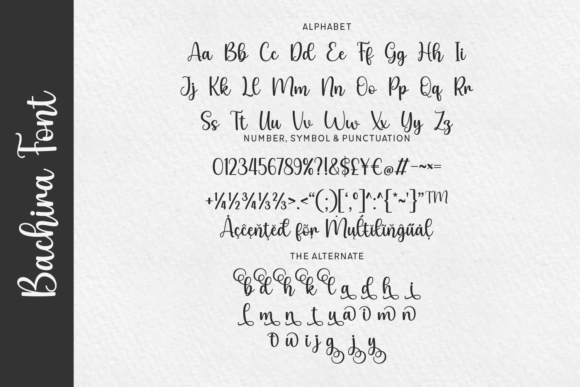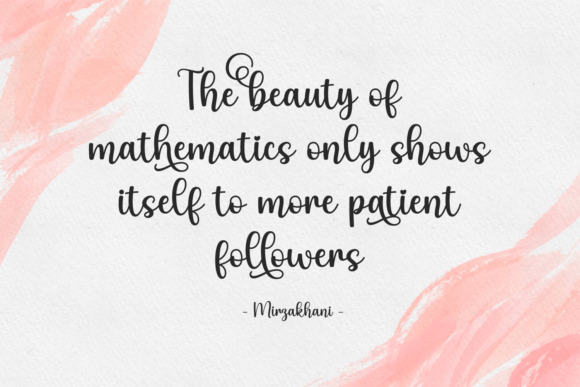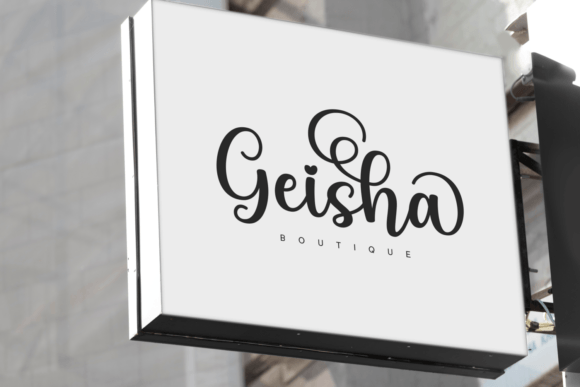
Introducing Bachira Font: Elevate Your Designs with Elegance and Playfulness
In the world of typography, a font can make or break a design. For those seeking a touch of elegance and whimsy, Bachira Font is an exceptional choice. This charming script font boasts unique swashes and an elegant design, making it perfect for a variety of creative projects. From wedding invitations and branding to greeting cards and more, Bachira adds a sophisticated yet playful touch that elevates any design.
The Characteristics of Bachira Font
Bachira Font is distinguished by its beautiful, flowing script and distinctive swashes. These elements give it a romantic and refined appearance, ideal for designs that require a touch of sophistication. The font’s strokes are both playful and elegant, balancing whimsy with class. This versatility makes Bachira suitable for a wide range of applications, from logos and social media posts to more traditional uses like wedding invitations and greeting cards.
Whether you’re a designer looking for the perfect font for a client’s branding or a crafter seeking to add a personal touch to your handmade products, Bachira Font is an excellent choice. Its unique blend of elegance and playfulness ensures that your designs stand out. Here are some of the areas where Bachira truly shines:
- Wedding Invitations: Add a touch of romance and sophistication to your wedding invitations with Bachira’s elegant script and beautiful swashes.
- Branding: Elevate your brand with a font that exudes elegance and professionalism. Bachira’s unique style ensures your brand stands out.
- Greeting Cards: Whether it’s a birthday, anniversary, or holiday card, Bachira adds a delightful flair that makes your cards more special.
- Logos: Create a memorable logo with Bachira’s distinctive and stylish script.
- Social Media Posts: Enhance your social media presence with eye-catching posts that incorporate Bachira’s playful yet sophisticated style.
Why Choose Bachira Font?
Bachira Font offers a unique combination of beauty, elegance, and readability. Here are some reasons why designers and crafters are drawn to this charming font:
- Versatility: Bachira can be used for both digital and print designs, making it a versatile addition to your font collection.
- Elegance: Its graceful flow and romantic details add a touch of sophistication to any project.
- Readability: Despite its elegant design, Bachira remains highly readable, making it suitable for body text as well as headlines.
- Uniqueness: The font’s unique swashes and playful strokes ensure your designs stand out from the crowd.
Tips for Using Bachira Font
To make the most of Bachira Font, consider the following tips:
- Pair with Complementary Fonts: For maximum impact, pair Bachira with clean, sans-serif fonts for contrast.
- Experiment with Swashes: Don’t be afraid to experiment with the font’s swashes to add a personal touch to your designs.
- Adjust Size and Color: Play around with different sizes and colors to find the perfect combination for your project.
Bachira Font is a charming and versatile script font that brings elegance and playfulness to any design. Its unique swashes, elegant design, and readable strokes make it perfect for a variety of creative projects. Whether you’re designing wedding invitations, branding materials, greeting cards, logos, or social media posts, Bachira is an excellent choice. With its graceful flow and romantic details, Bachira Font is sure to add a delightful flair to your work, setting it apart and making it truly memorable.
Incorporate Bachira Font into your design arsenal and discover the difference it can make in your creative projects. Its blend of sophistication and whimsy is sure to captivate your audience and leave a lasting impression.